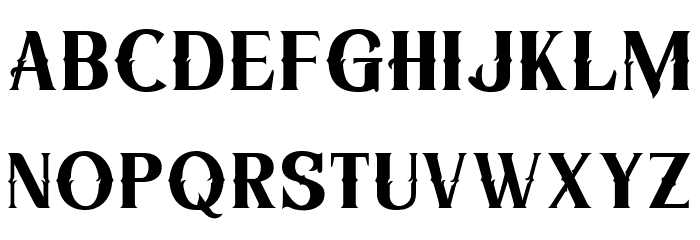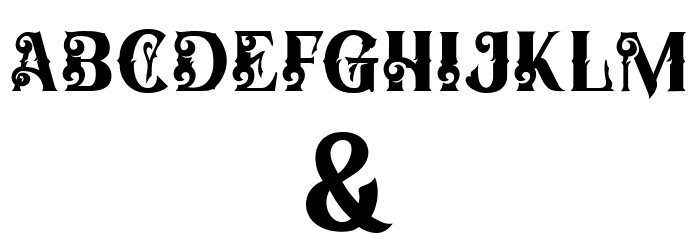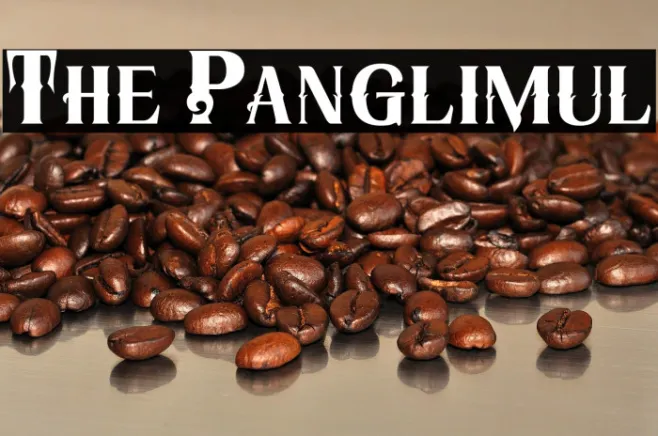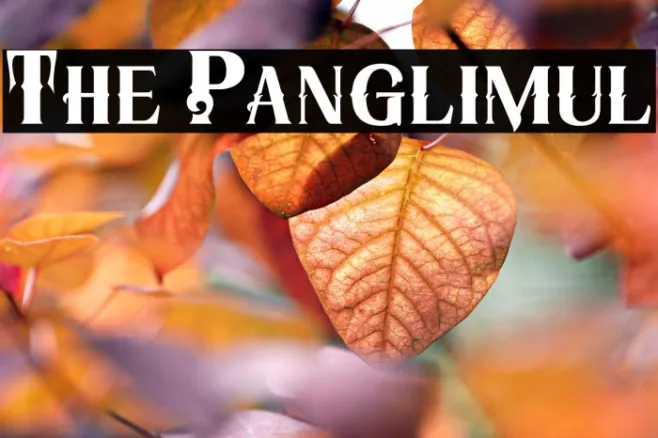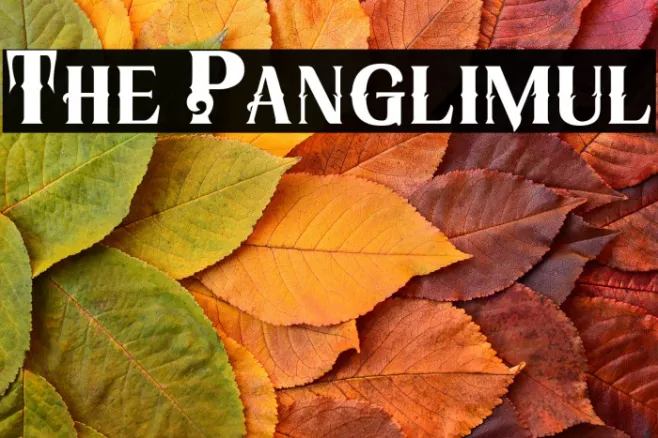
The Panglimul Font
This font features a bold and decorative style with intricate flourishes and embellishments on each character. The uppercase letters are particularly ornate, with swirling elements that add a sense of elegance and complexity. The font maintains a consistent weight throughout, providing a strong visual impact. The characters are well-defined, with a medium contrast between thick and thin strokes, enhancing readability while maintaining its decorative appeal. This font is ideal for projects that require a touch of sophistication and artistic flair.
A bold, decorative font with intricate flourishes and medium contrast.
- Font: The Panglimul
- Proposed Projects: Suitable for wedding invitations, luxury branding, book covers, and artistic posters.
- Use Case: Logos, Headlines, Artistic projects